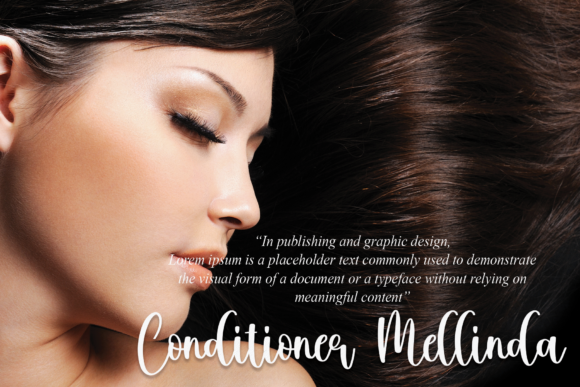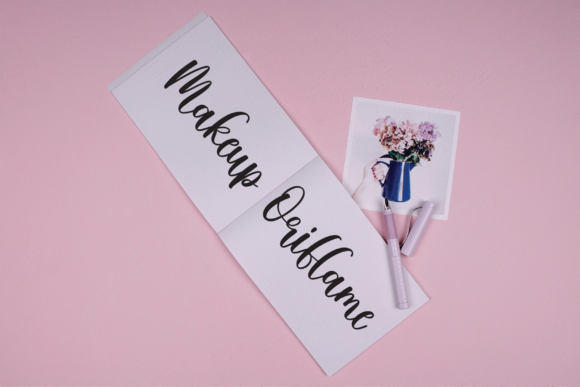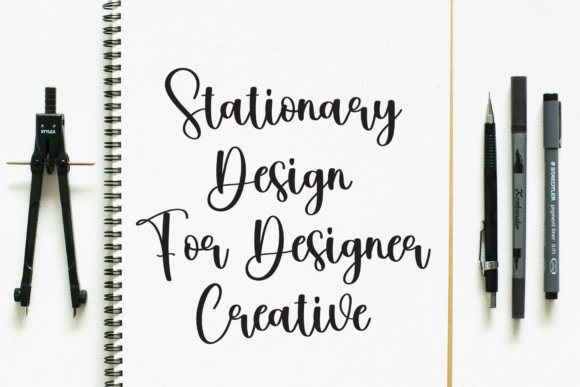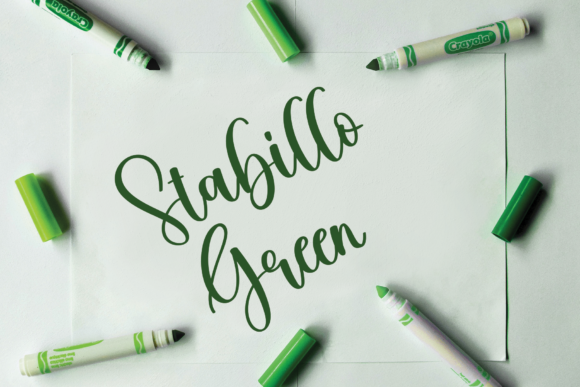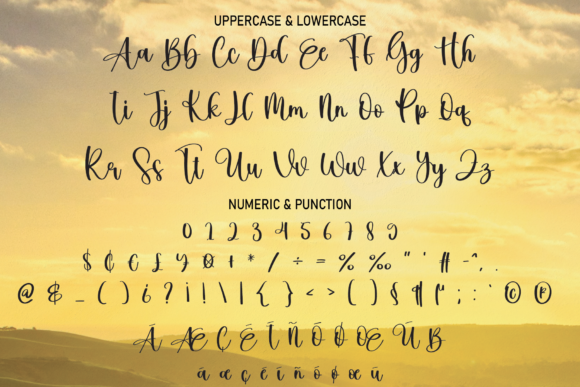
Introducing Everyday Font: The Perfect Choice for Designers and Crafters
Are you looking for a font that can elevate your designs and make them stand out? Look no further than Everyday Font, a lovely and slim handwritten font that is perfect for creating eye-catching logos, branding, and quotes. In this article, we’ll explore the features and benefits of Everyday Font, and why it’s a must-have for designers and crafters.
What is Everyday Font?
Everyday Font is a beautiful, handwritten font that is designed to be versatile and easy to read. Its slim and elegant lines make it perfect for a variety of design applications, from logos and branding to quotes and social media graphics. The font is carefully crafted to convey a sense of simplicity, sophistication, and friendliness, making it ideal for designers and crafters who want to create a lasting impression.
Key Features of Everyday Font
- Lovely and Slim Design: Everyday Font features a slim and elegant design that is perfect for creating eye-catching logos, branding, and quotes.
- Handwritten Style: The font has a beautiful, handwritten style that adds a personal touch to any design.
- Versatile: Everyday Font is versatile and can be used in a variety of contexts, from digital designs to print materials.
- Easy to Read: The font is carefully crafted to be easy to read, making it perfect for body text and captions.
Why Choose Everyday Font?
- Unique and Creative: Everyday Font is a unique and creative font that can help you stand out from the crowd.
- Support for Multiple Languages: Everyday Font supports multiple languages, making it perfect for designers and crafters who work with international clients.
Use Cases for Everyday Font
Everyday Font is a versatile font that can be used in a variety of contexts. Here are just a few examples:
- Logos and Branding: Use Everyday Font to create eye-catching logos and branding materials that will help your clients stand out.
- Quotes and Social Media Graphics: The font is perfect for creating inspiring quotes and social media graphics that will engage your audience.
- Digital Designs: Use Everyday Font in digital designs, such as website headers, email newsletters, and digital ads.
- Print Materials: The font is also suitable for print materials, such as brochures, flyers, and business cards.